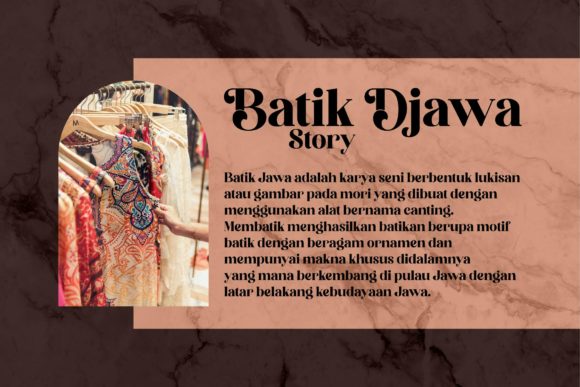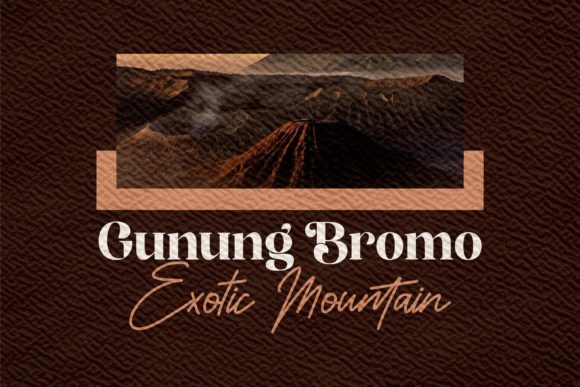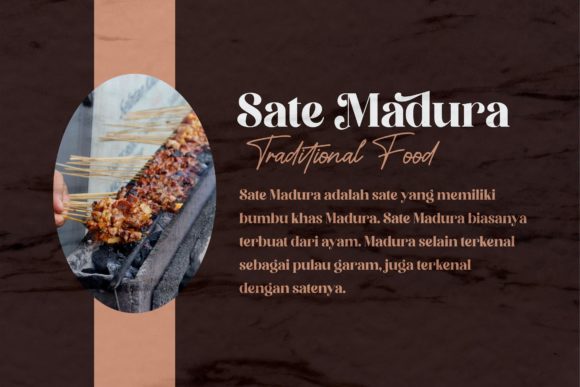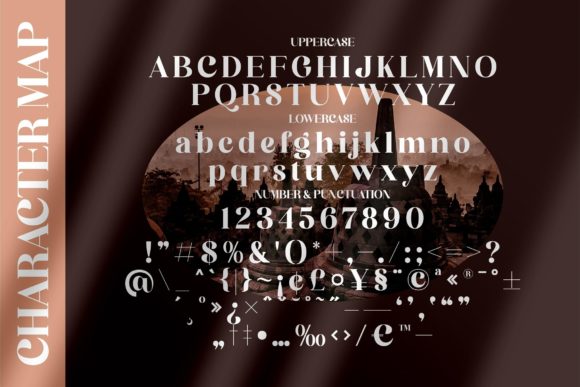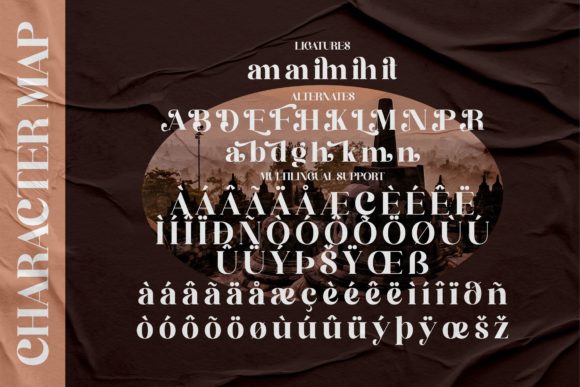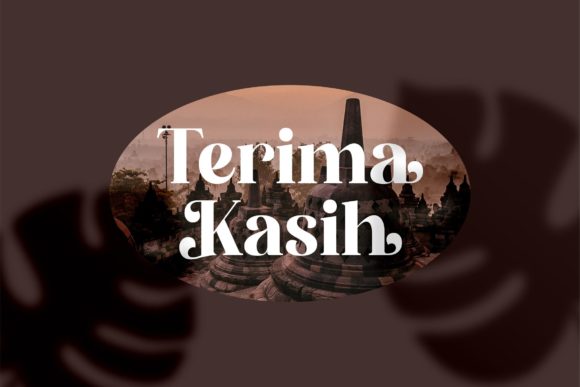
Bergante Font: Elevate Your Designs with a Bold, Stylish, and Thick Lettered Serif Font
Are you tired of using the same old fonts in your designs? Do you want to add a touch of elegance and sophistication to your creations? Look no further than the Bergante Font, a bold, stylish, and thick lettered serif font that’s perfect for designers and crafters alike. In this article, we’ll take a closer look at the Bergante Font, its features, and how you can use it to take your designs to the next level.
What is Bergante Font?
Bergante is a bold, stylish, and thick lettered serif font that’s designed to make a statement. Its unique blend of classic and modern elements makes it perfect for a wide range of design projects, from logos and branding to packaging and advertising. With its strong, confident lines and elegant serifs, Bergante is sure to add a touch of sophistication to any design.
One of the standout features of the Bergante Font is its PUA (Private Use Area) encoding. This means that you can access all of the glyphs and swashes with ease, giving you even more creative freedom to experiment with different styles and effects. With PUA encoding, you can easily insert glyphs and swashes into your designs, allowing you to add intricate details and flourishes that take your work to the next level.
Key Features of Bergante Font
- Bold and Stylish: Bergante is a bold, stylish font that’s designed to make a statement.
- Thick Lettered: The font features thick, confident lines that add a touch of elegance to any design.
- Serif Font: Bergante is a serif font, with elegant serifs that add a touch of sophistication to any design.
- PUA Encoded: The font is PUA encoded, making it easy to access all glyphs and swashes.
How to Use Bergante Font in Your Designs
So, how can you use Bergante Font in your designs? Here are a few ideas to get you started:
- Logos and Branding: Use Bergante to create bold, eye-catching logos and branding materials that make a statement.
- Packaging: Add a touch of elegance to your packaging designs with Bergante’s thick, confident lines and elegant serifs.
- Advertising: Use Bergante to create eye-catching ads that grab attention and leave a lasting impression.
- Stationery: Add a touch of sophistication to your stationery designs, including business cards, letterheads, and more.
Tips for Getting the Most Out of Bergante Font
Here are a few tips for getting the most out of Bergante Font:
- Experiment with Different Sizes: Bergante looks great in a variety of sizes, from small and subtle to large and bold.
- Play with Glyphs and Swashes: Use the PUA encoding to access glyphs and swashes, adding intricate details and flourishes to your designs.
- Pair with Other Fonts: Experiment with pairing Bergante with other fonts to create unique and interesting effects.
In conclusion, Bergante Font is a bold, stylish, and thick lettered serif font that’s perfect for designers and crafters alike. With its PUA encoding and elegant serifs, it’s easy to add a touch of sophistication to any design. Whether you’re creating logos and branding materials, packaging, advertising, or stationery, Bergante is sure to make a statement. So why wait? Download Bergante Font today and start elevating your designs to the next level!